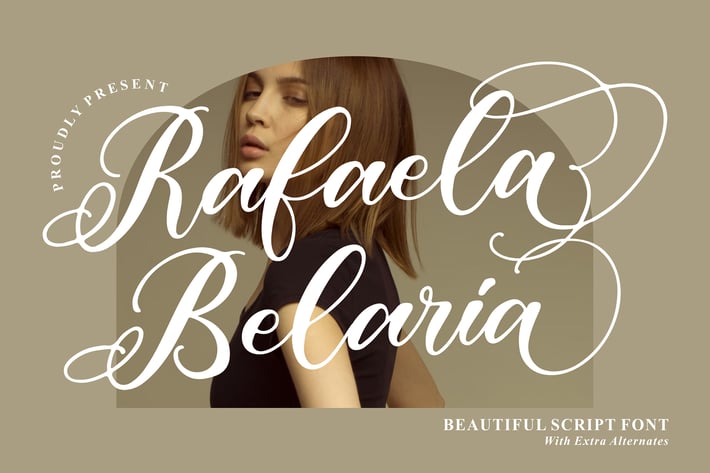
Rafaela Belaria Script Font
Rafaela Belaria is a beautifully flowing script font designed to bring elegance and warmth into any visual project. Its refined strokes and graceful curves make it an ideal choice for branding, social media graphics, wedding stationery, packaging, and various creative displays that need a romantic and sophisticated touch.
Elegant modern script style
Smooth curves with natural handwritten flow
Includes extra alternates for stylistic variety
Perfect for both digital and print use
High-quality letterforms for professional projects
Branding
Wedding invitations
Social media posts
Packaging design
Logo design
* Quote graphics